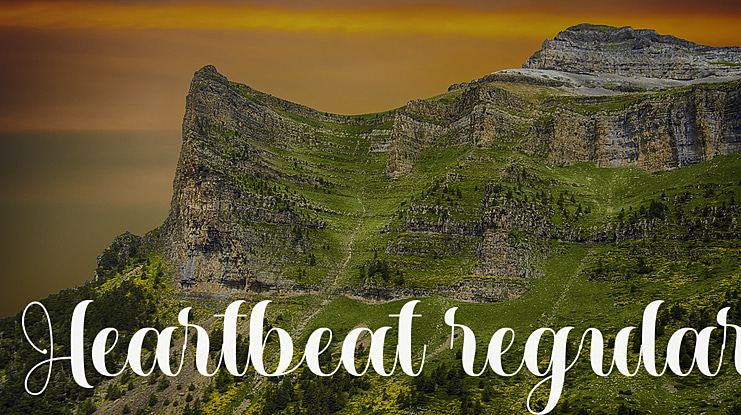
Heartbeat Font Family
Heartbeat Family Font - Typeface Script!
Heartbeat Family Font - Typeface Script is a modern, sleek, clear and strong script font. This can be used to create great works on logos, text, posters, magazines, titles, business cards, magazines, web layouts, invitations, headers, branding, and other business-related.
Make something beautiful today with Heartbeat.